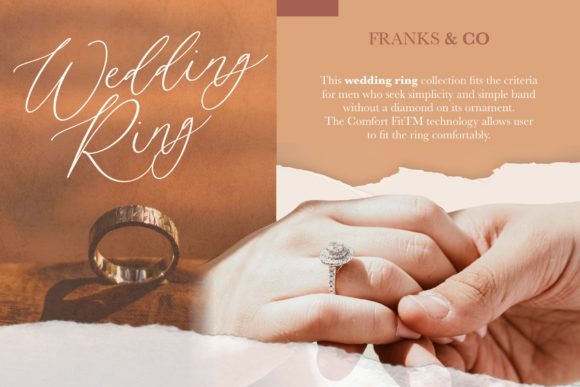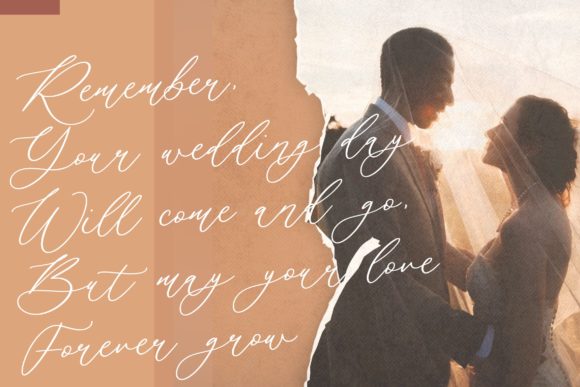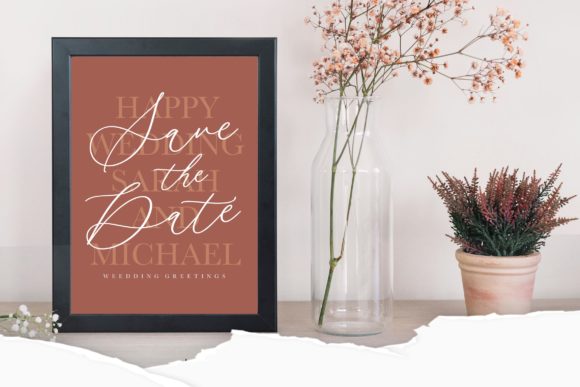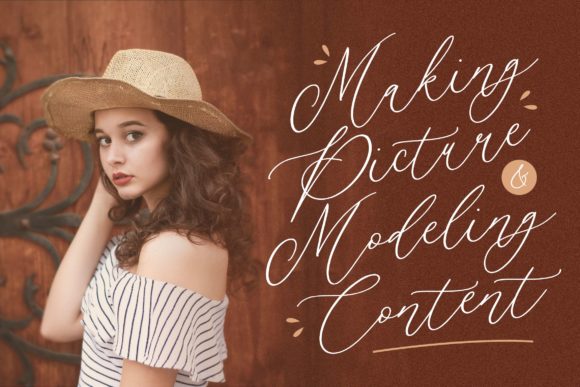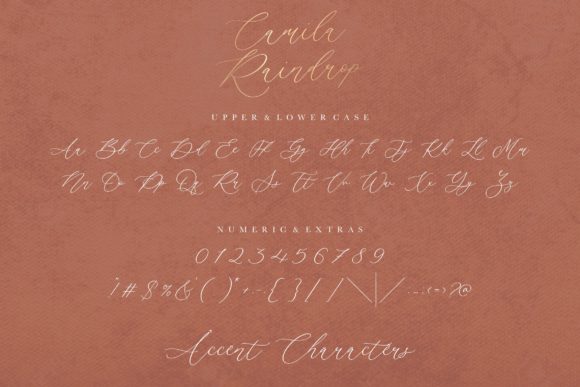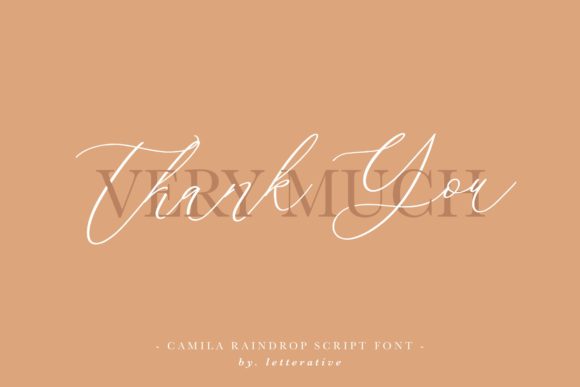
Camila Raindrop Font: Elevate Your Designs with Elegance
In the world of typography, a well-chosen font can make all the difference in transforming a design from ordinary to extraordinary. For designers and crafters seeking a unique and elegant handwritten font, Camila Raindrop is an exceptional choice. This beautiful font is designed to add a touch of sophistication and personality to your creative projects, making them stand out with effortless charm.
The Unique Charm of Camila Raindrop
Camila Raindrop is a distinctive handwritten font that exudes elegance and refinement. Its unique character lies in its delicate and intricate strokes, which give it a personal and bespoke feel. The font’s design is inspired by the gentle and soothing sound of raindrops, reflecting a sense of calmness and serenity in its curves and lines. This makes Camila Raindrop perfect for projects that require a touch of grace and poise.
Key Features of Camila Raindrop Font
- Unique Handwritten Style: Camila Raindrop boasts a one-of-a-kind handwritten style that sets it apart from more traditional fonts. Its individuality ensures that your designs will have a personal touch.
- Elegant and Refined: The font’s elegant and refined appearance makes it suitable for a wide range of projects, from luxury branding to wedding invitations.
- Versatile: Whether you’re working on digital content, print materials, or handmade crafts, Camila Raindrop adapts seamlessly to various mediums.
- Easy to Read: Despite its intricate design, Camila Raindrop maintains excellent readability, ensuring that your message is conveyed clearly and effectively.
Applications of Camila Raindrop Font
The versatility of Camila Raindrop font makes it an excellent choice for a multitude of design projects. Here are some ideas to get you started:
- Branding and Logo Design: Create a lasting impression with a unique logo that incorporates the elegance of Camila Raindrop.
- Wedding and Event Invitations: Add a touch of sophistication to your wedding or event invitations, making them truly unforgettable.
- Digital and Print Media: Use Camila Raindrop in your blog posts, social media graphics, brochures, and posters to give your content a distinctive look.
- Crafting and DIY Projects: Incorporate this beautiful font into your handmade crafts, such as journals, cards, and scrapbooking, to give them a personal and bespoke feel.
How to Make the Most of Camila Raindrop
To truly make your designs stand out with Camila Raindrop, consider the following tips:
- Pair with Complementary Fonts: Combine Camila Raindrop with simpler fonts to create contrast and enhance readability.
- Experiment with Colors: Play with different color schemes to find the perfect match that accentuates the font’s elegance.
- Use in Combination with Images: Pair the font with relevant images or illustrations to create visually appealing compositions.